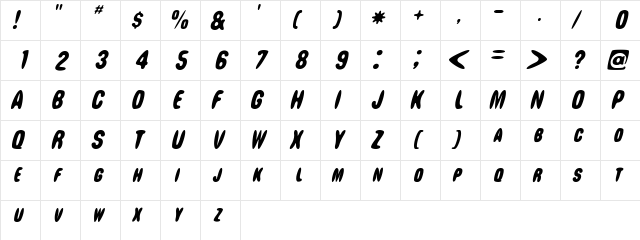
Margaline Medium Font Preview
Margaline Medium
Margaline Medium Font Details
Design Context for Margaline Typeface
Margaline takes a measured approach to typography — its balanced proportions and neutral character make it a reliable workhorse for both digital and print work.